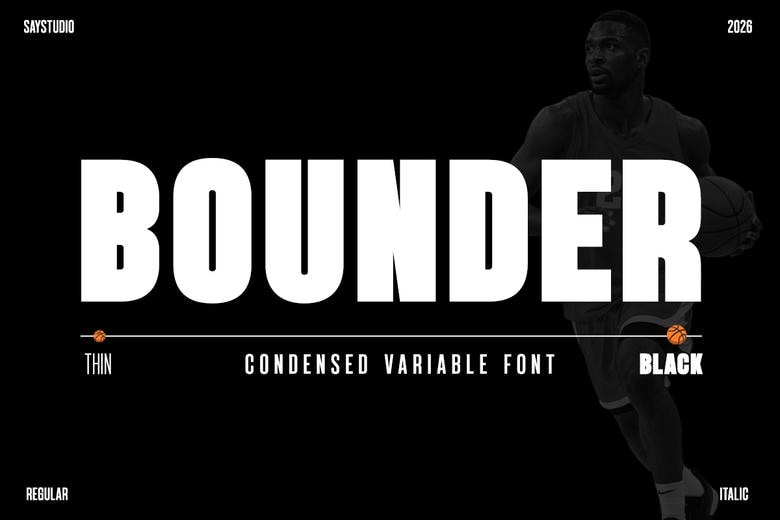
Bounder Font Family
Bounder is a powerful, condensed variable sans serif typeface designed to be bold, fast, and athletic. Bounder is designed with tight proportions, high vertical rhythm, and smooth geometric balance, which gives the impression of command that catches the eye immediately. The compressive design enables the designer to squeeze more message within a small area and still have excellent readability and aesthetic impact.
Bounder was designed as a variable font with heavy-light weight range (Thin to Black) to provide the branding systems, sports identity, editorial layout, motion graphics usage, advertising, and digital media with the necessary flexibility. This font can easily fit into any dynamic design requirements, whether headlines, posters, clothing graphics, social media content, web banners, user-interface displays, packaging or even promotional campaigns, with acute clarity and boldness.
Sports, streetwear, fitness, event promotions, technology startups, and bold corporate identities: Bounder lets designers create energetic, high-impact typography that feels modern, confident, and competitive. Condensed ratios and robust character make it the perfect fit in the fast, powerful, and authority projects.